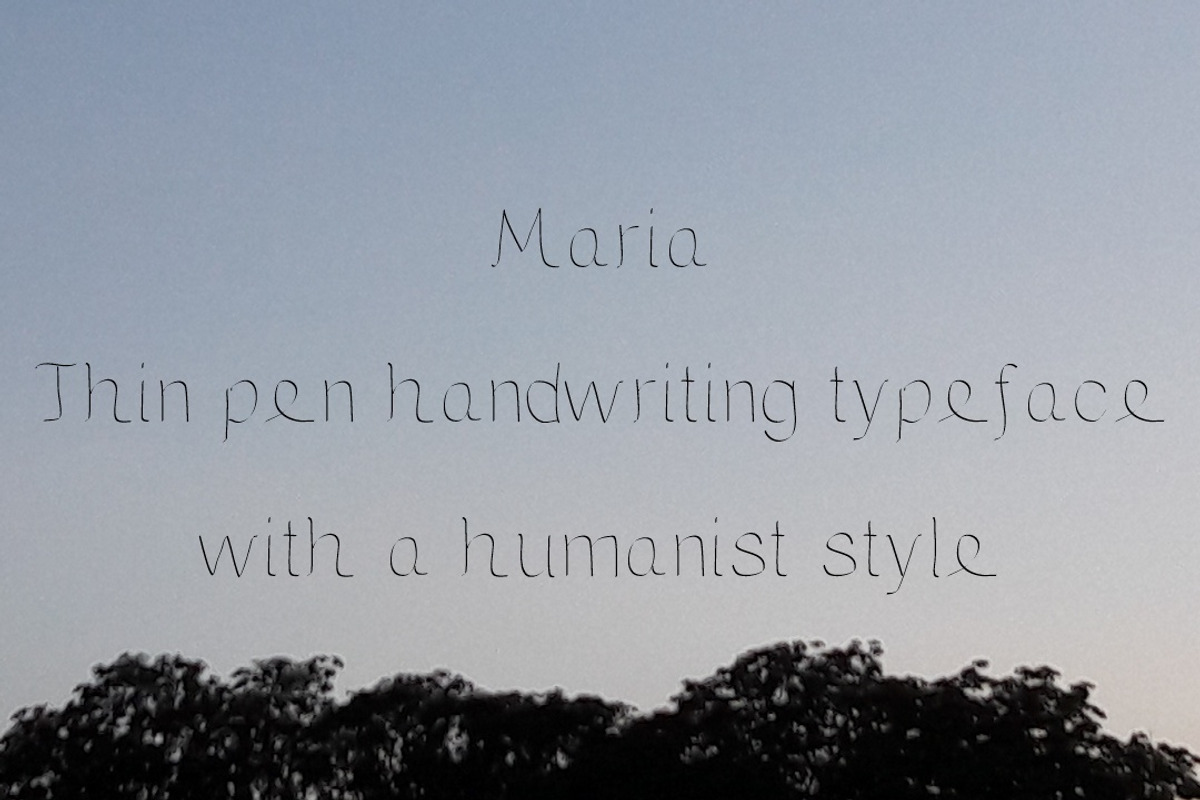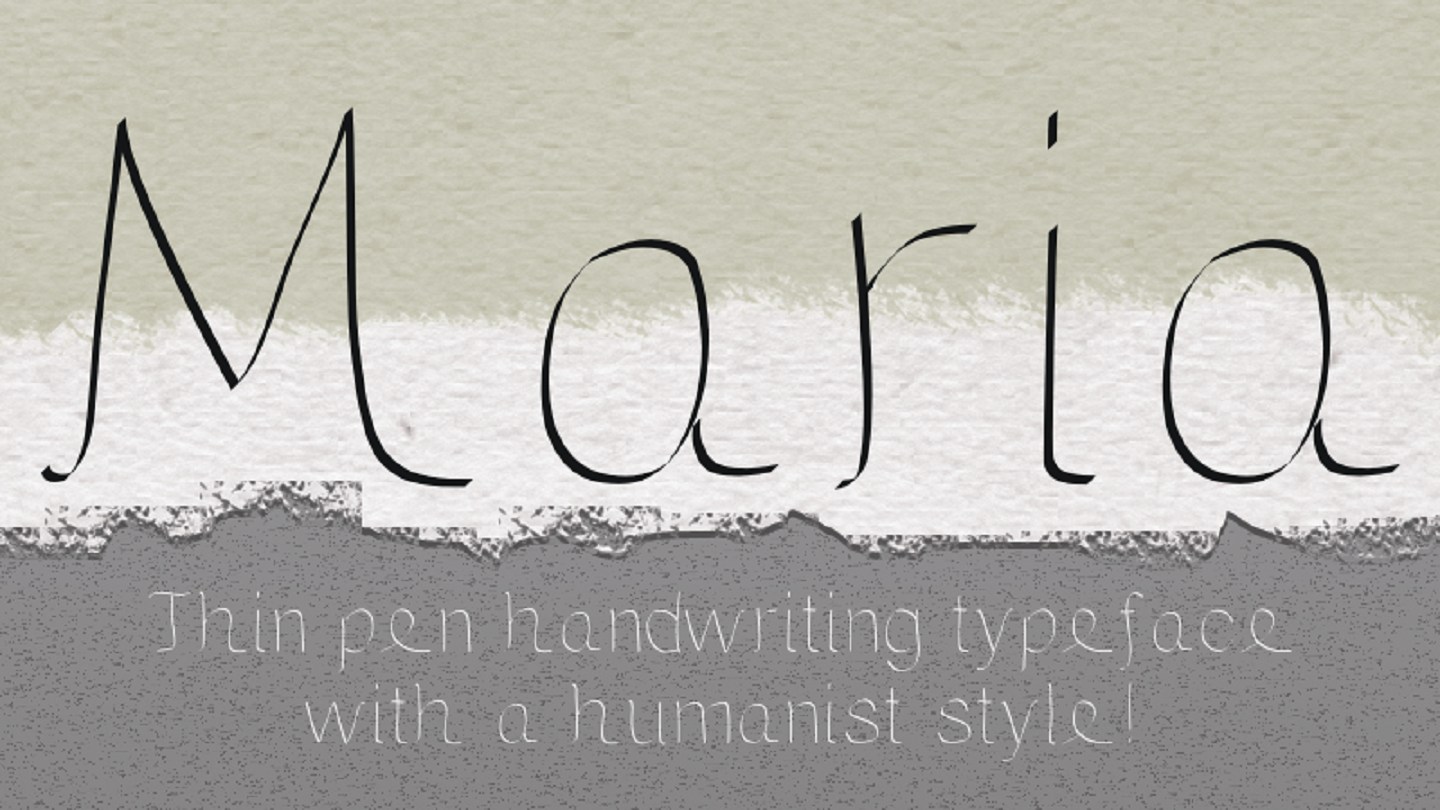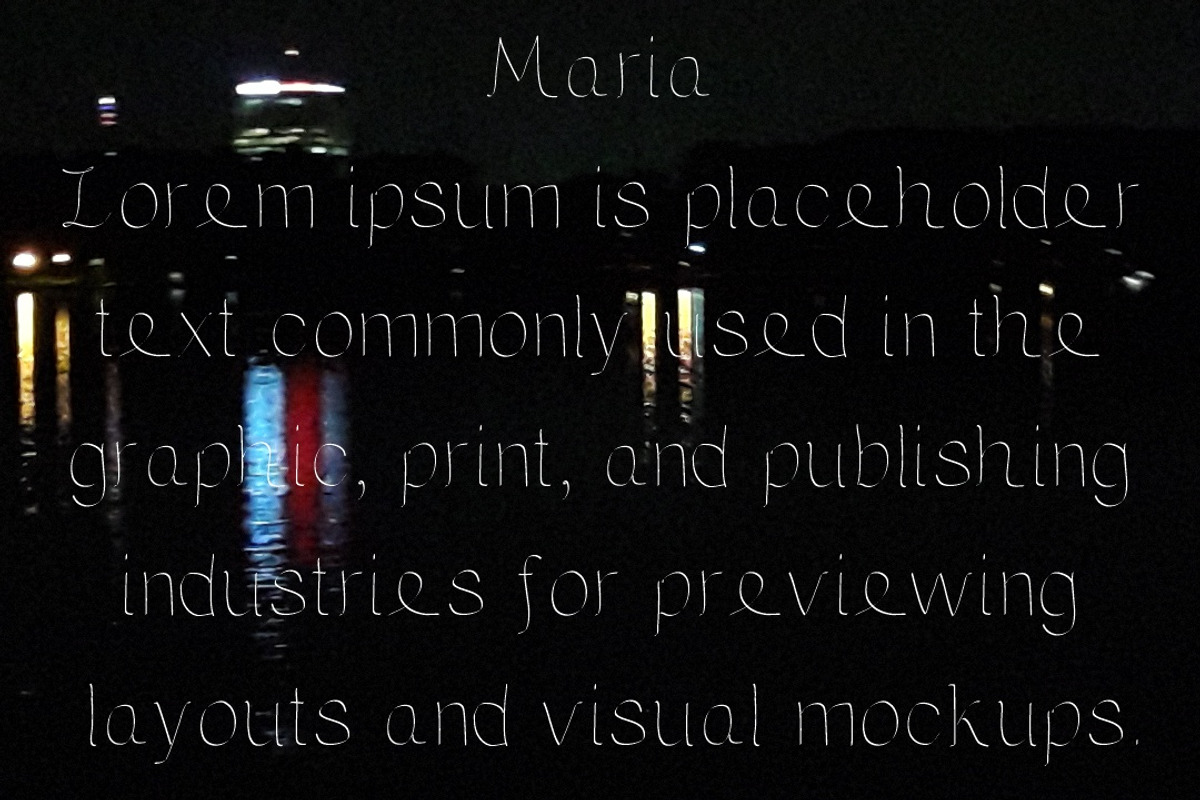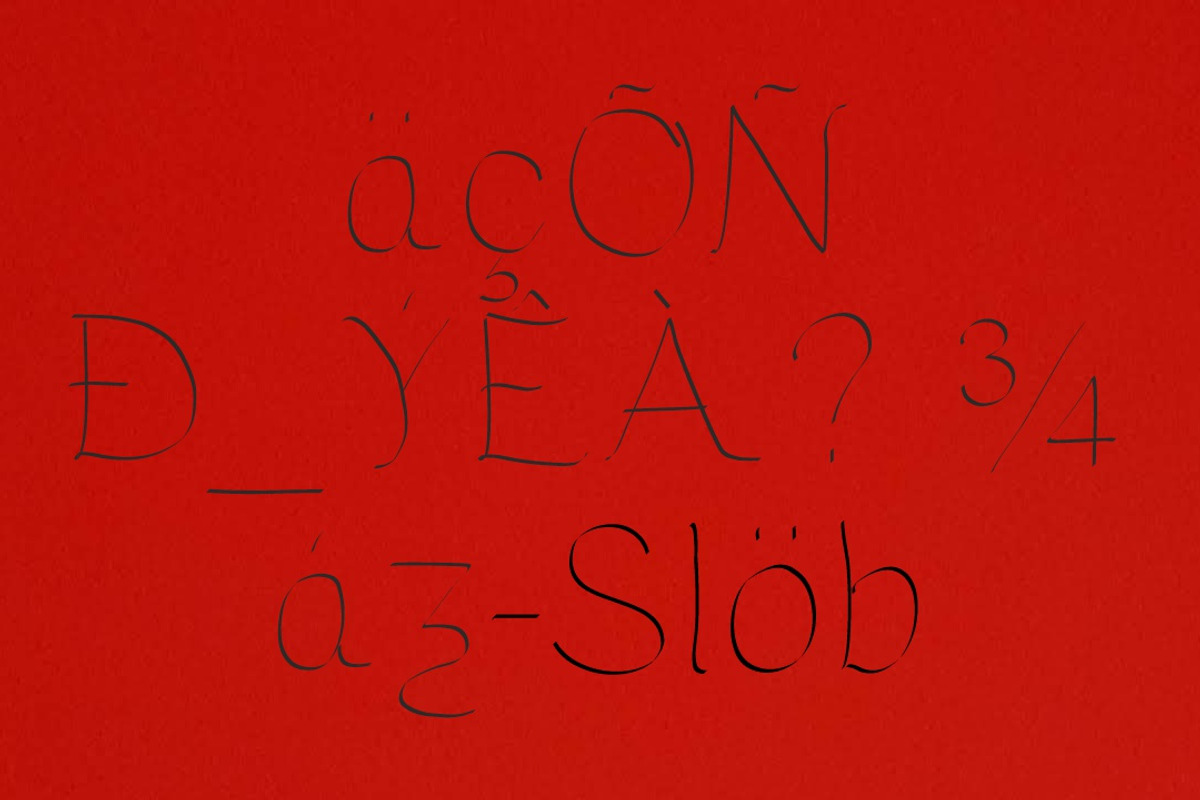
Maria, a handwritten slab font
Maria font is a slab handwriting typeface designed. With it’s highly humanist style, Maria can be used to give you a pen like writing style to your designs.